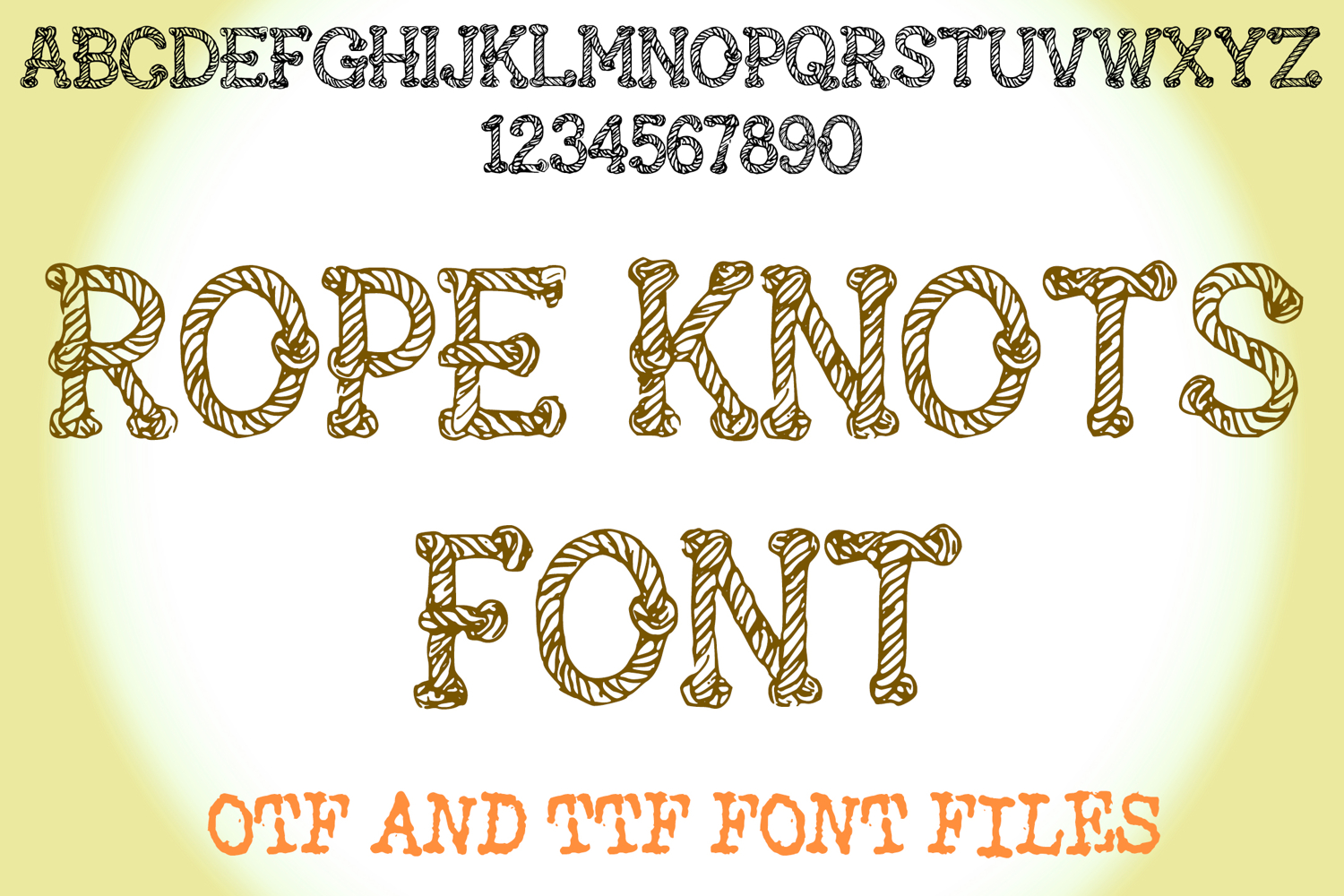
Rope Knots Lettering ABC Text Font Alphabet Coastal OTF Type IllustrationÂ
A fun style font where you can create your own words and colour them to your vision!